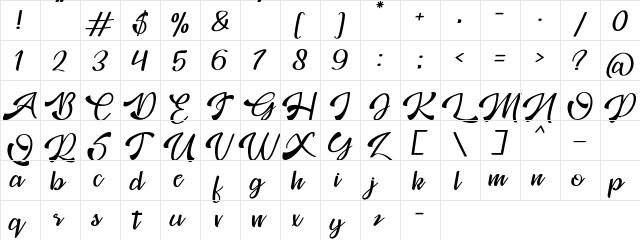
Mosgrade Personal Use Regular
| Foundry | FallenGraphic Studio |
| Designer | Vava Aryanto |
Design Context for Mosgrade Personal Use Typeface
Mosgrade Personal Use is a composed and adaptable typeface that performs quietly and consistently across a wide range of design contexts.